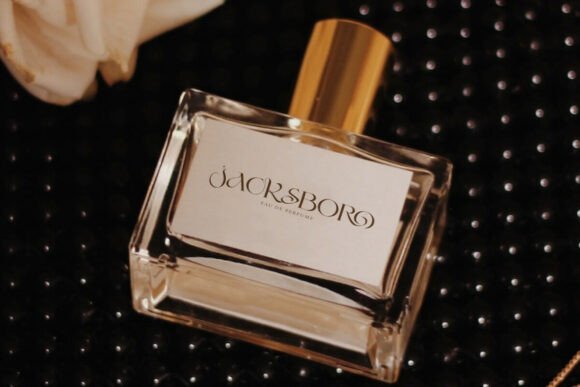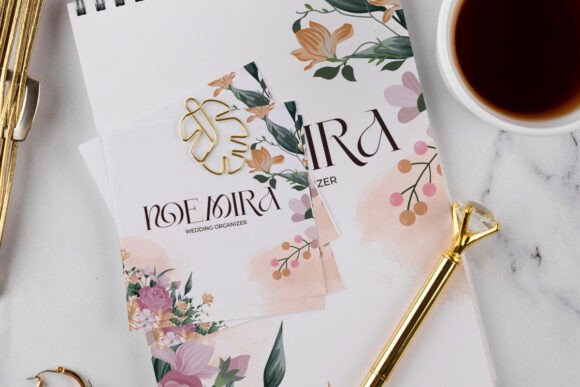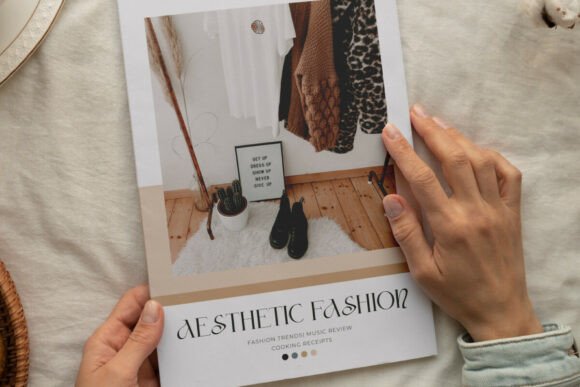
Introduction to Jacksboro Font
Jacksboro is a refined and artistic display font that blends elegance with a touch of mystique.
Featuring high-contrast strokes, unique ligatures, and luxurious curves, this font is perfect for upscale branding, fashion editorials, packaging, and wedding invites Its sophisticated flair and whimsical details make every word feel curated and timeless.
Key Features of Jacksboro Font
Why Choose Jacksboro Font?